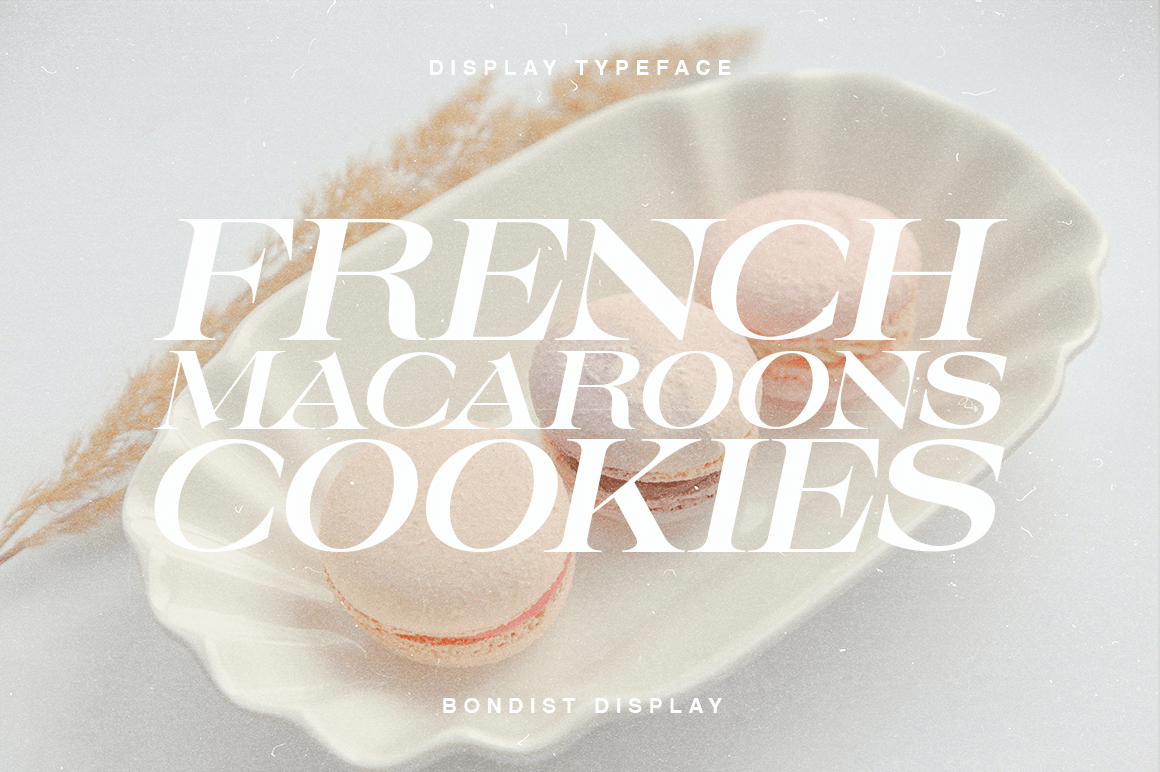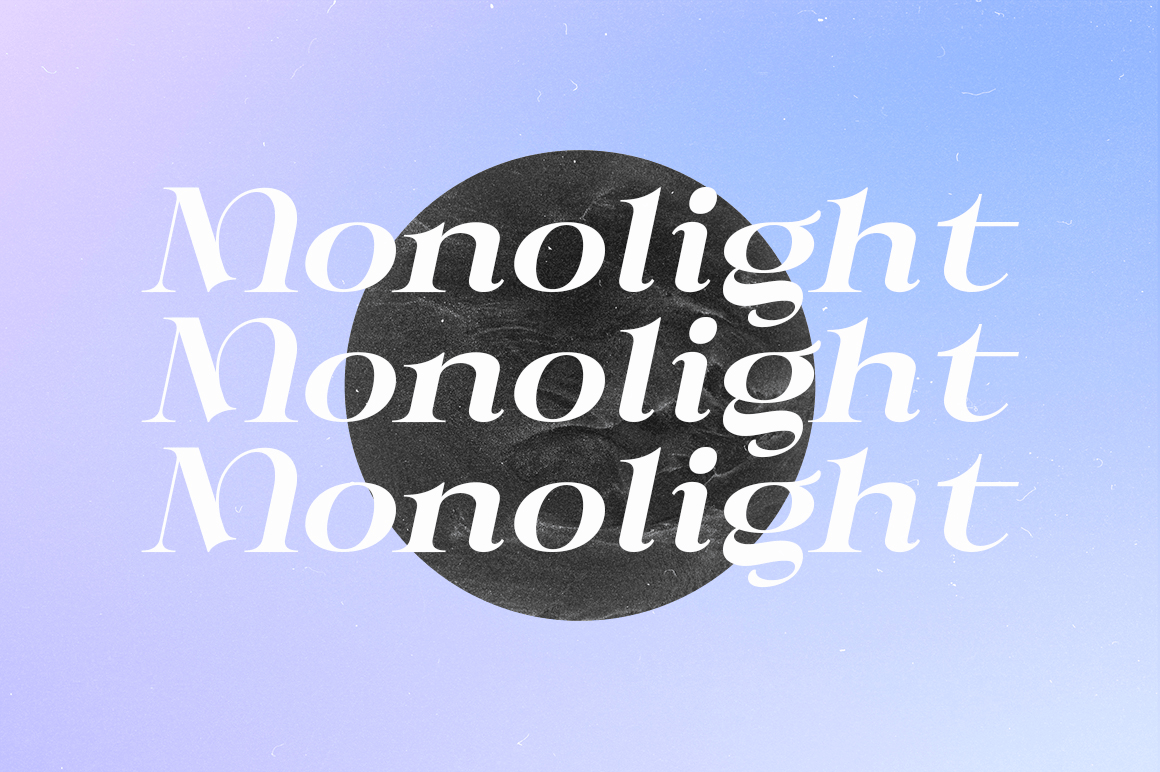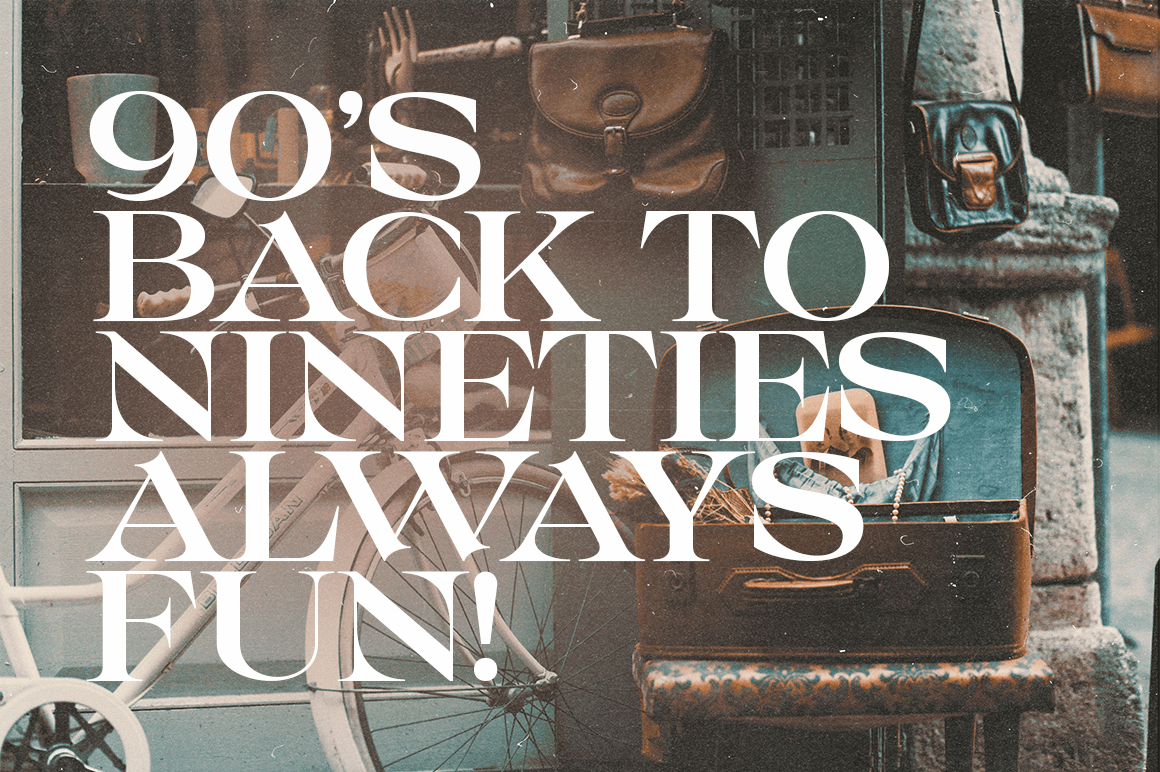
About Bondist Display
Introducing Bondist Display! A chic & modern display font. Bondist Display is unique as it can be used for a variety of design styles. It fits in wonderfully for free-spirited, boho designs and also for more classy editorial looks! This font is perfect…